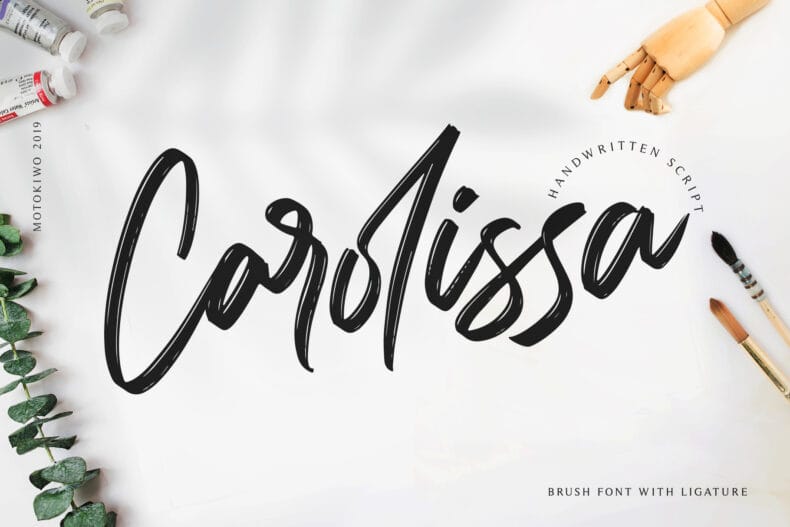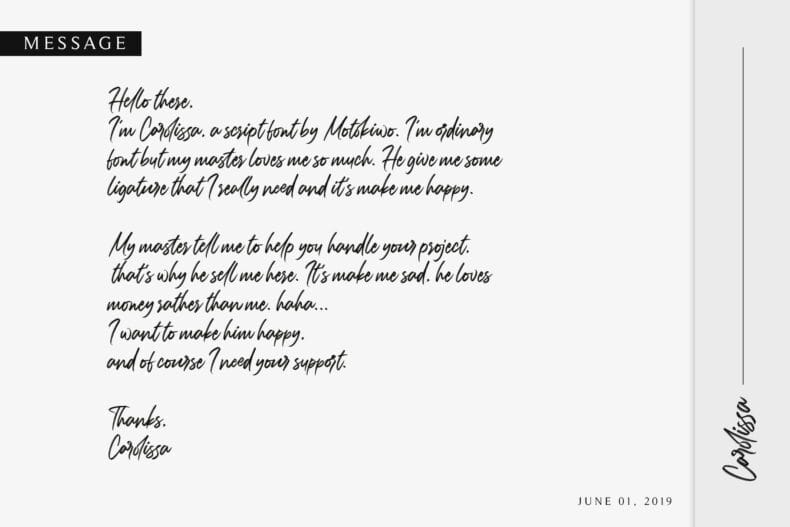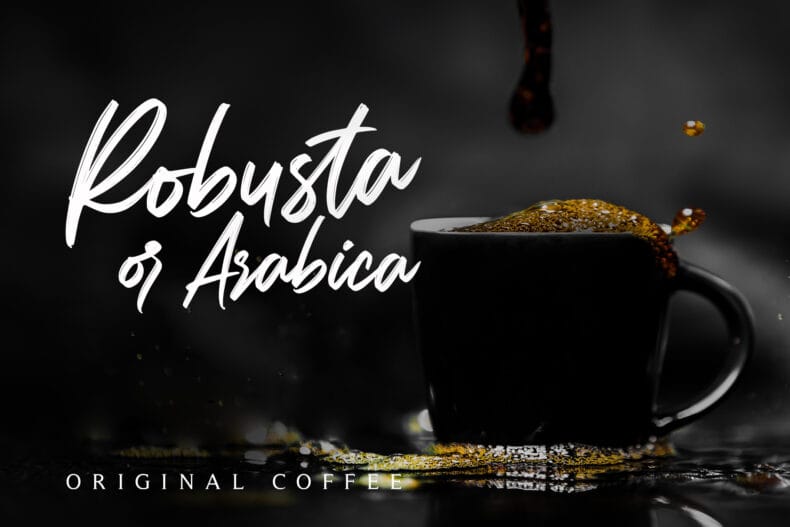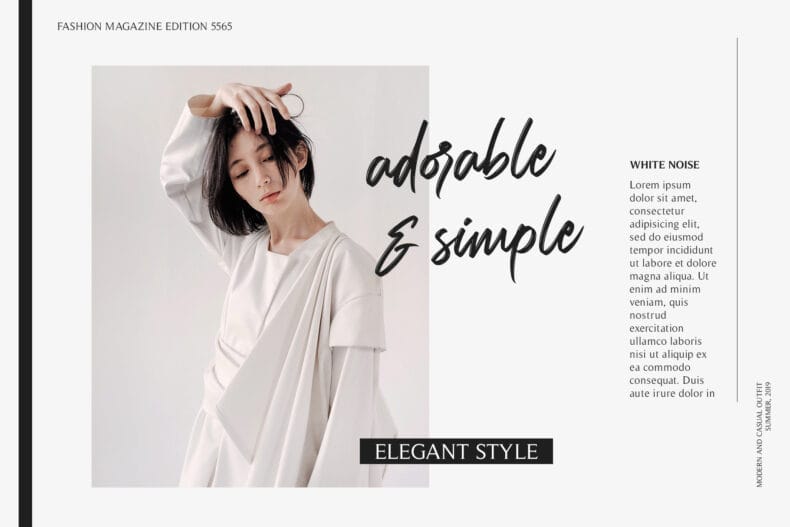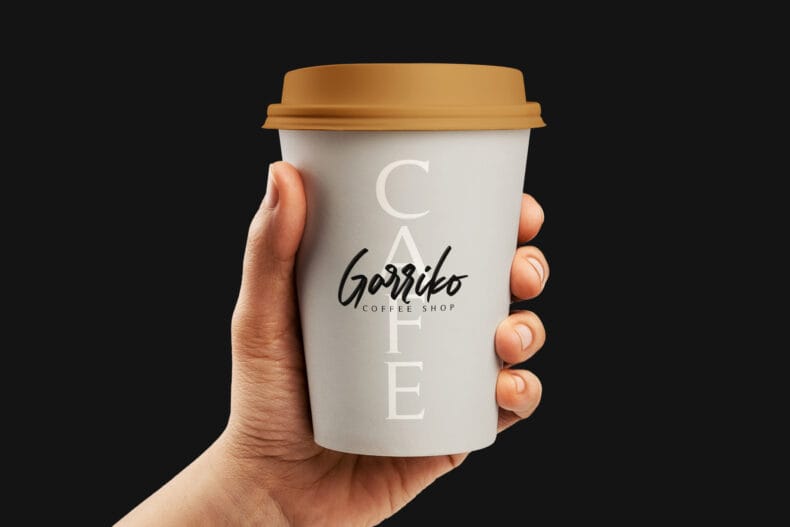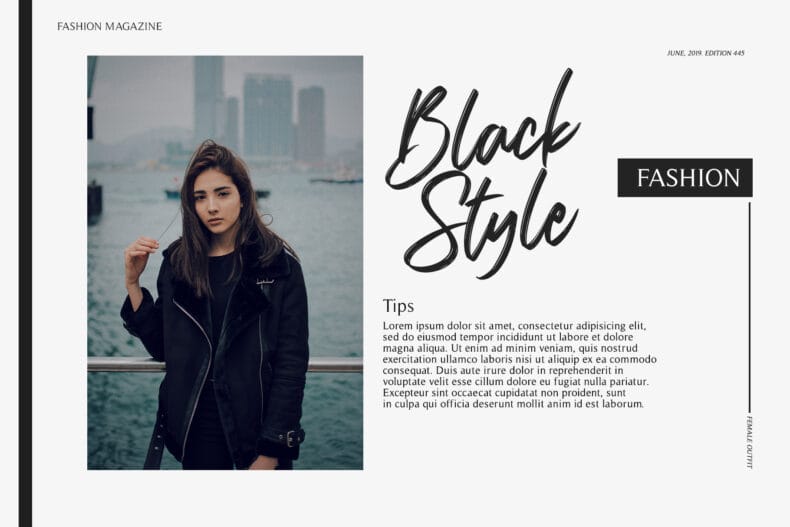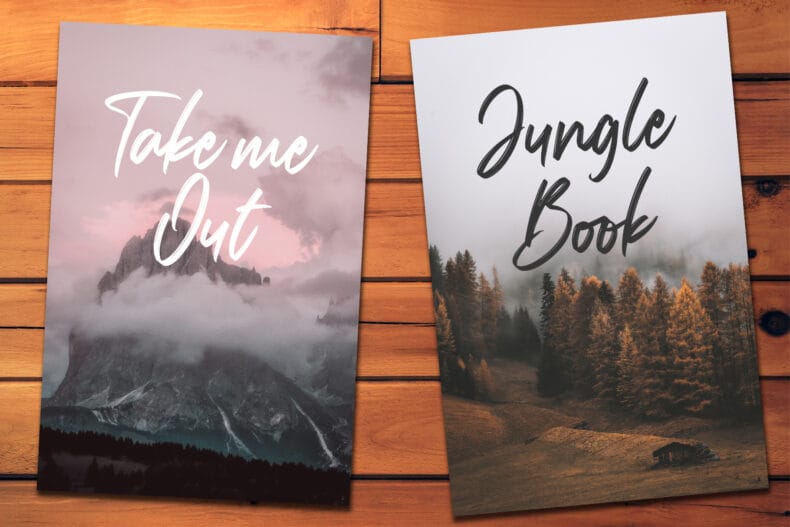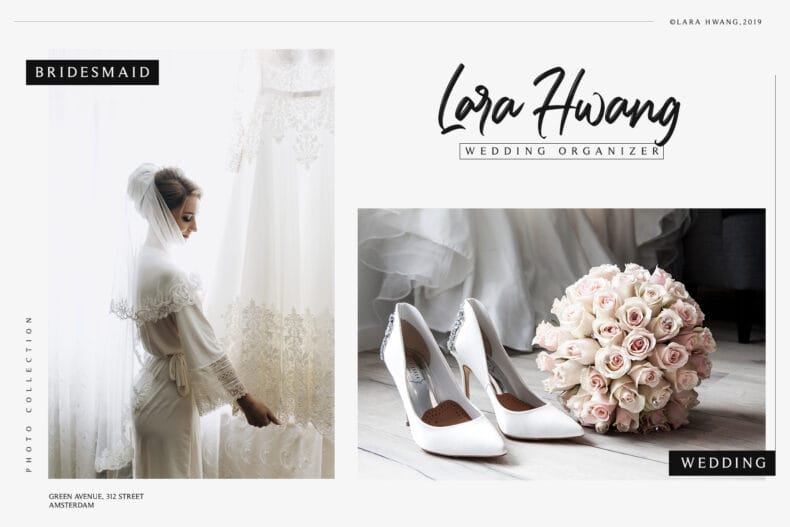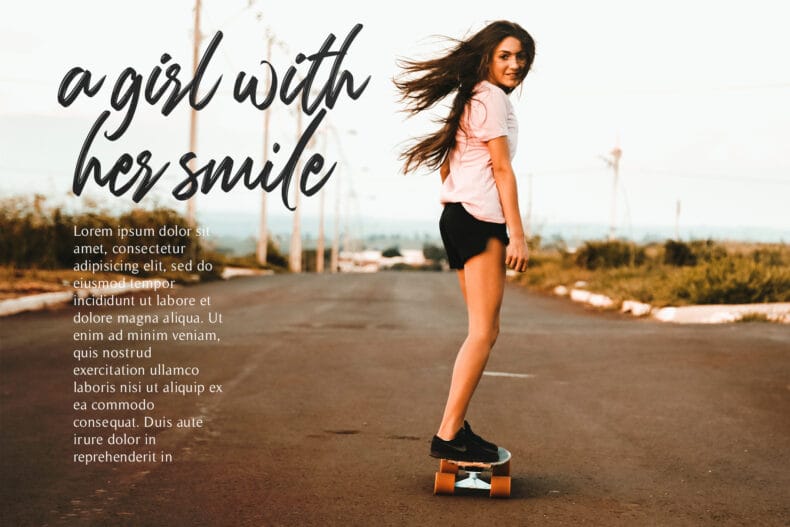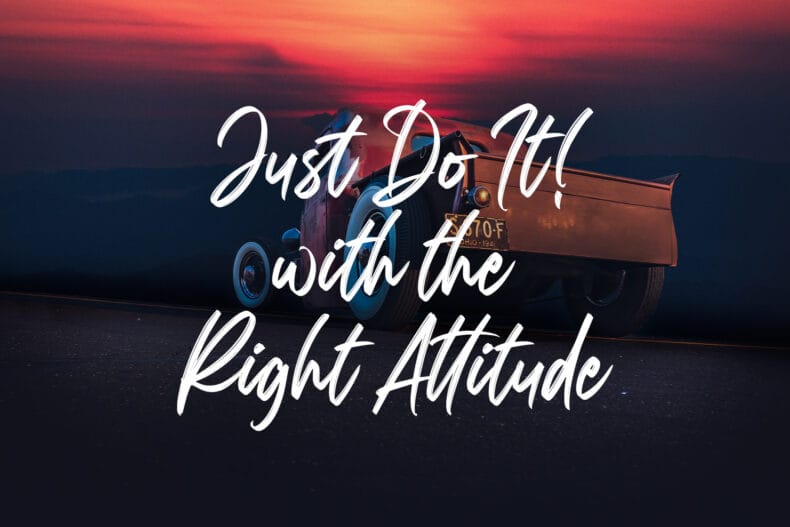
Carolissa, Brush Font
Carolissa is a handwritten brush script with a spontaneous, dynamic flow. Ligatures add options for expressive wording in branding, titles, and personal messages.
Carolissa offers a brush-written direction for lettering that should feel in motion. Try it for a short cover title, a brand-name concept, or a message that needs a more expressive accent within a simple layout.
It includes uppercase and lowercase letters, numerals, punctuation, ligatures, multilingual characters, and PUA encoding. Preview your wording and check the balance of the letters at the intended display size.